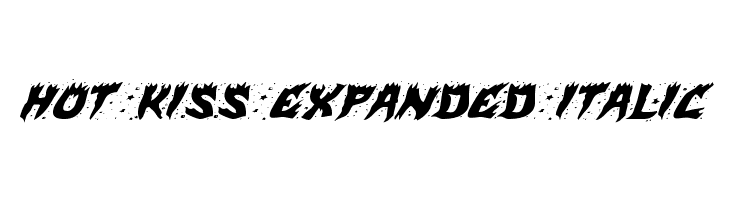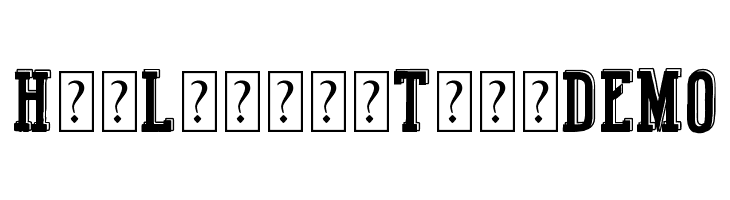
• Hot Kiss Expanded Italic 字体
A bold, italic, and expanded font with a distressed, edgy style.
• Hot Kiss Italic 字体
A bold, italic font with jagged, flame-like edges for a dramatic effect.
• Hot Kiss Leftalic 字体
A bold, flame-like font with a dynamic, graffiti-inspired style.
• Hot Kiss Outline 字体
A bold, playful outline font with jagged edges and dot details, perfect for dynamic designs.
• Hot Kiss Outline Italic 字体
A bold, italic outline font with playful, splash-like decorative elements.
• Hot Kiss Rotalic 字体
A bold, jagged font with flame-like edges for dramatic designs.
• Hot Kiss Rotated 字体
A bold, jagged font with a distressed, grunge-like appearance.
• Hot Kiss Staggered 字体
A bold, jagged font with an edgy, distressed appearance.
• Hot Legend Team DEMO 字体
A bold, vintage serif font with decorative elements and shadow effects.
• Hot National Team DEMO 字体
A bold, vintage serif font with strong, condensed letters.